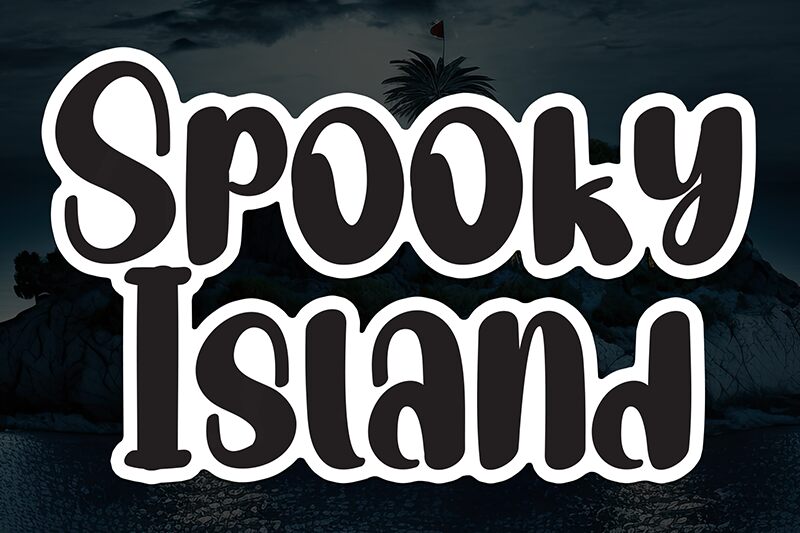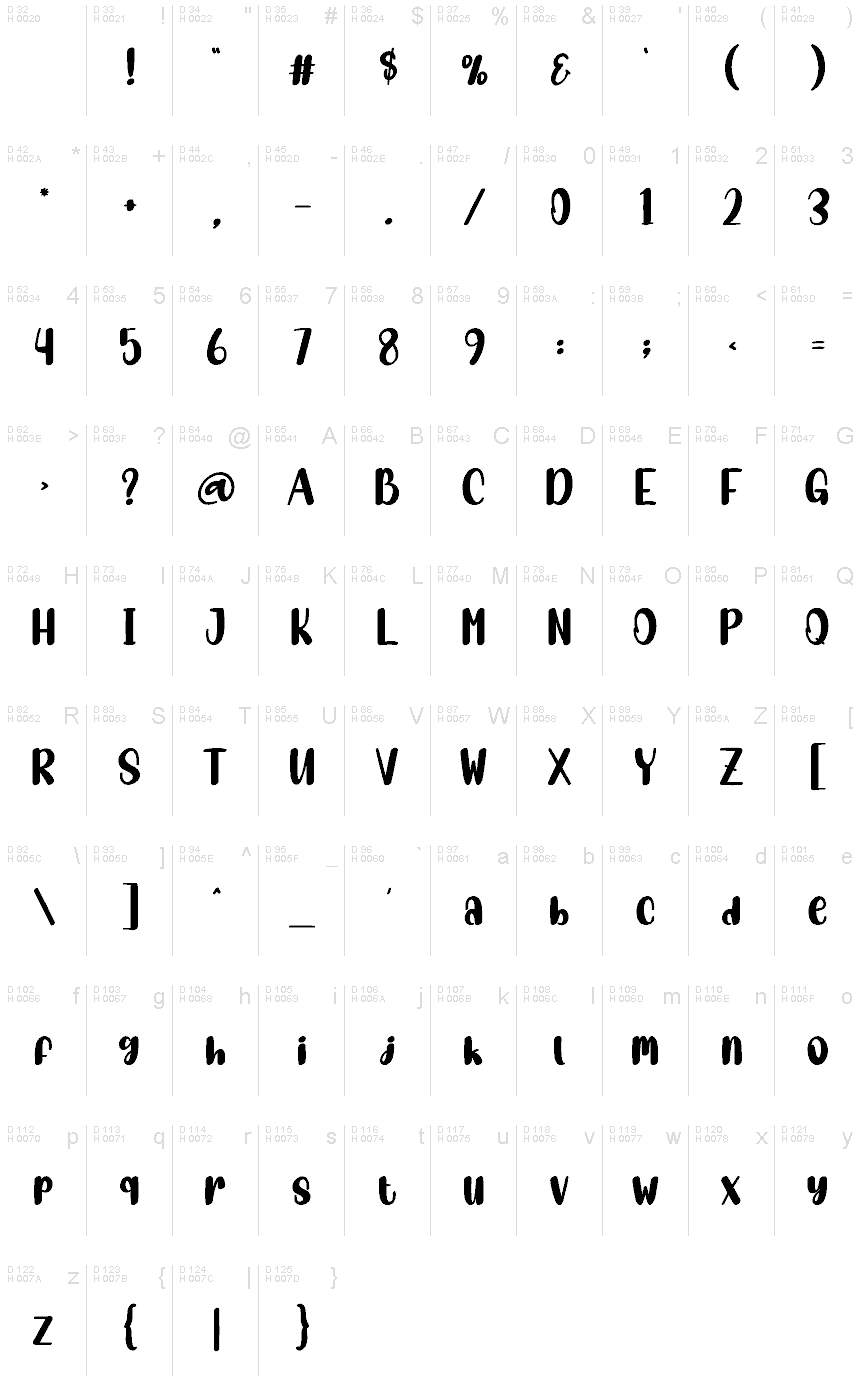
Spooky Island
Spooky Island font is a display bold typeface from Andi Moz with a condensed style, thick exaggerated appearance, and rounded elements. A combination of whimsical and retro-inspired styles with a theatrical expressive touch offers an eye-catching design suitable for all sorts of good-natured viewers.
Use the free font in projects related to camping, parties for kids, carnivals, educational videos, toy packaging boxes or wrap designs, poster designs in motion picture theaters or others. Also suitable for book covers and social media visuals on Instagram or Pinterest.